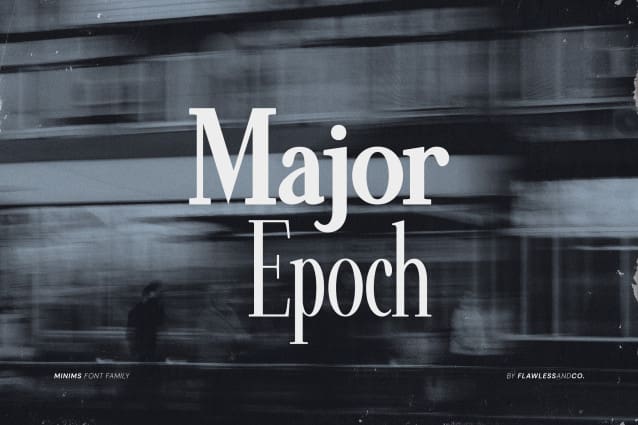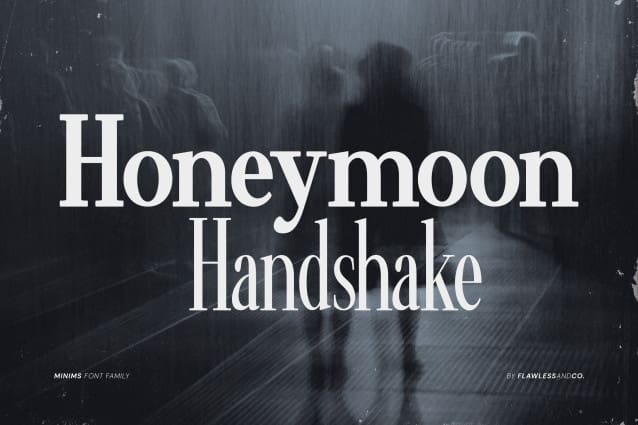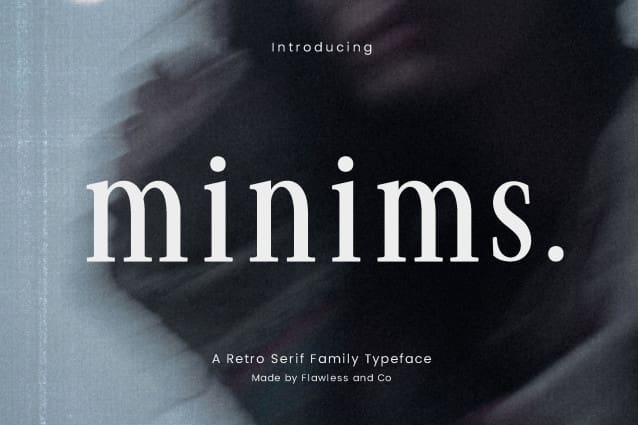
Minims Font
Minims Font, this serif font is stylish and sophisticated. It has a classic feel with thin strokes, sharp angles, and elegant curves. It is perfect for any project looking to add a touch of class. This font is PUA encoded which means you can access all glyphs and swashes effortlessly!